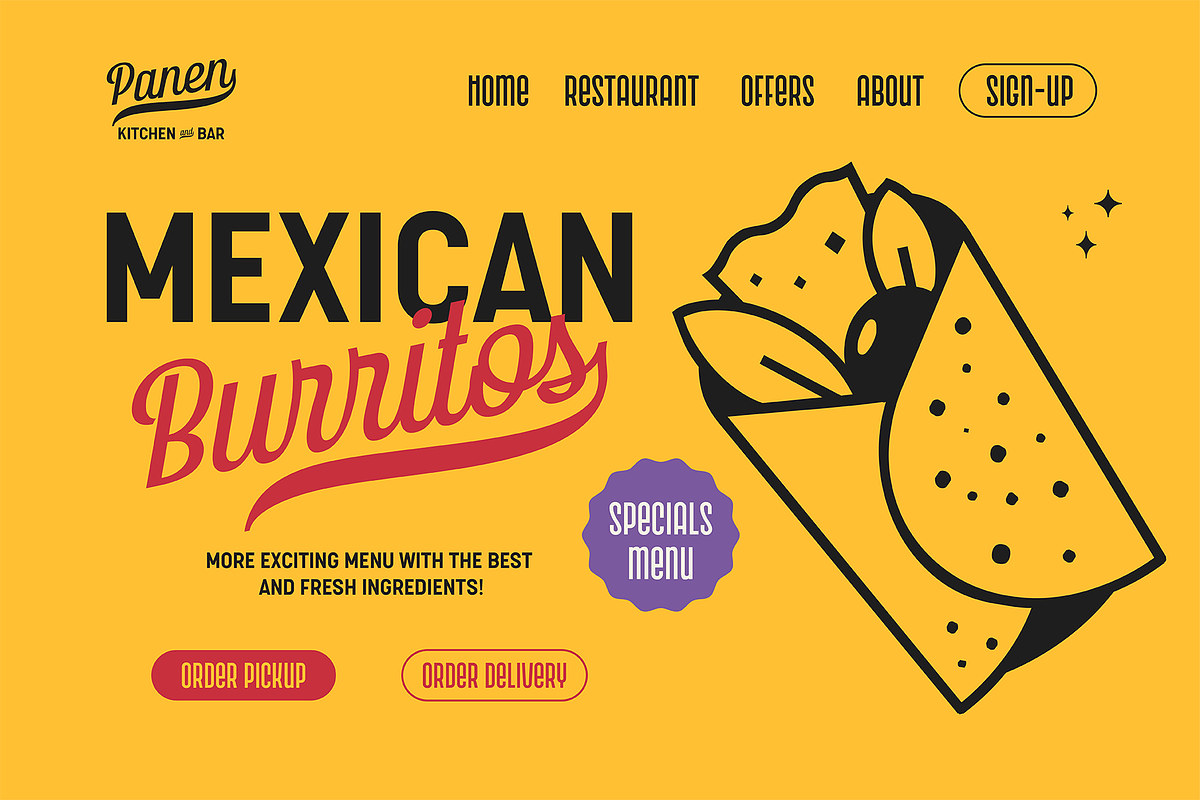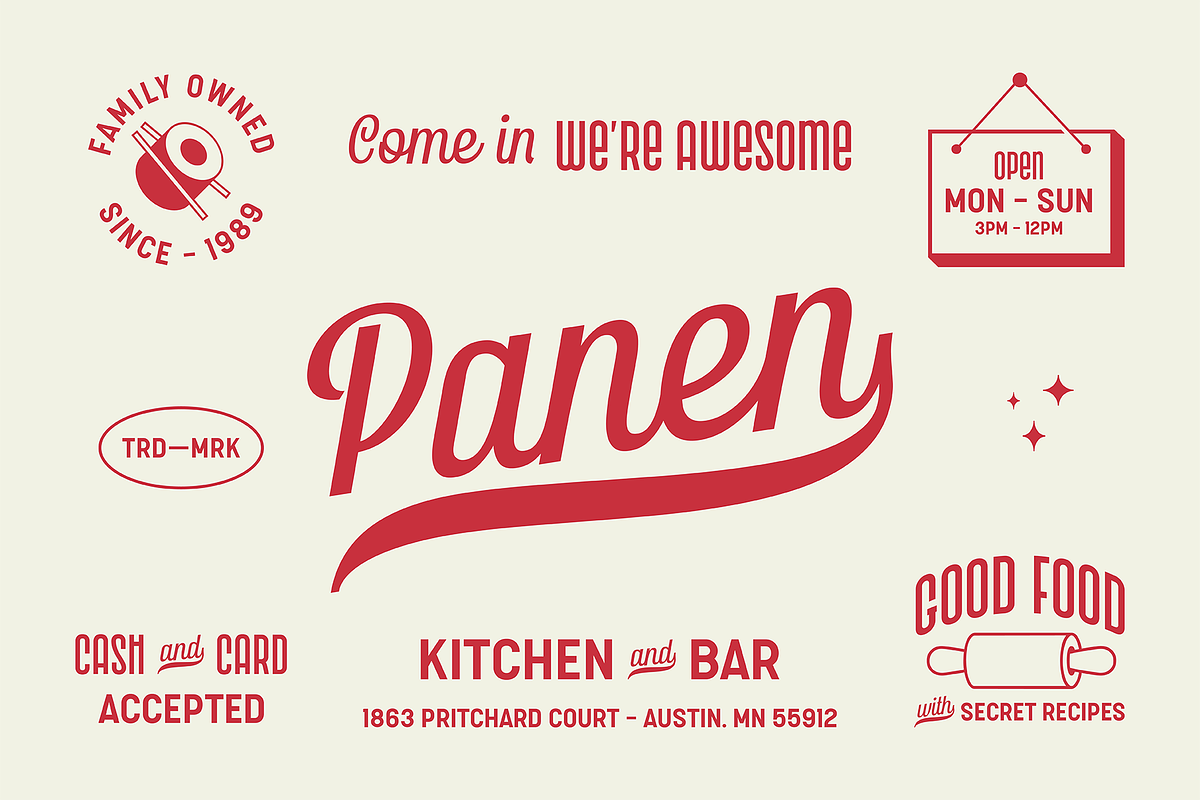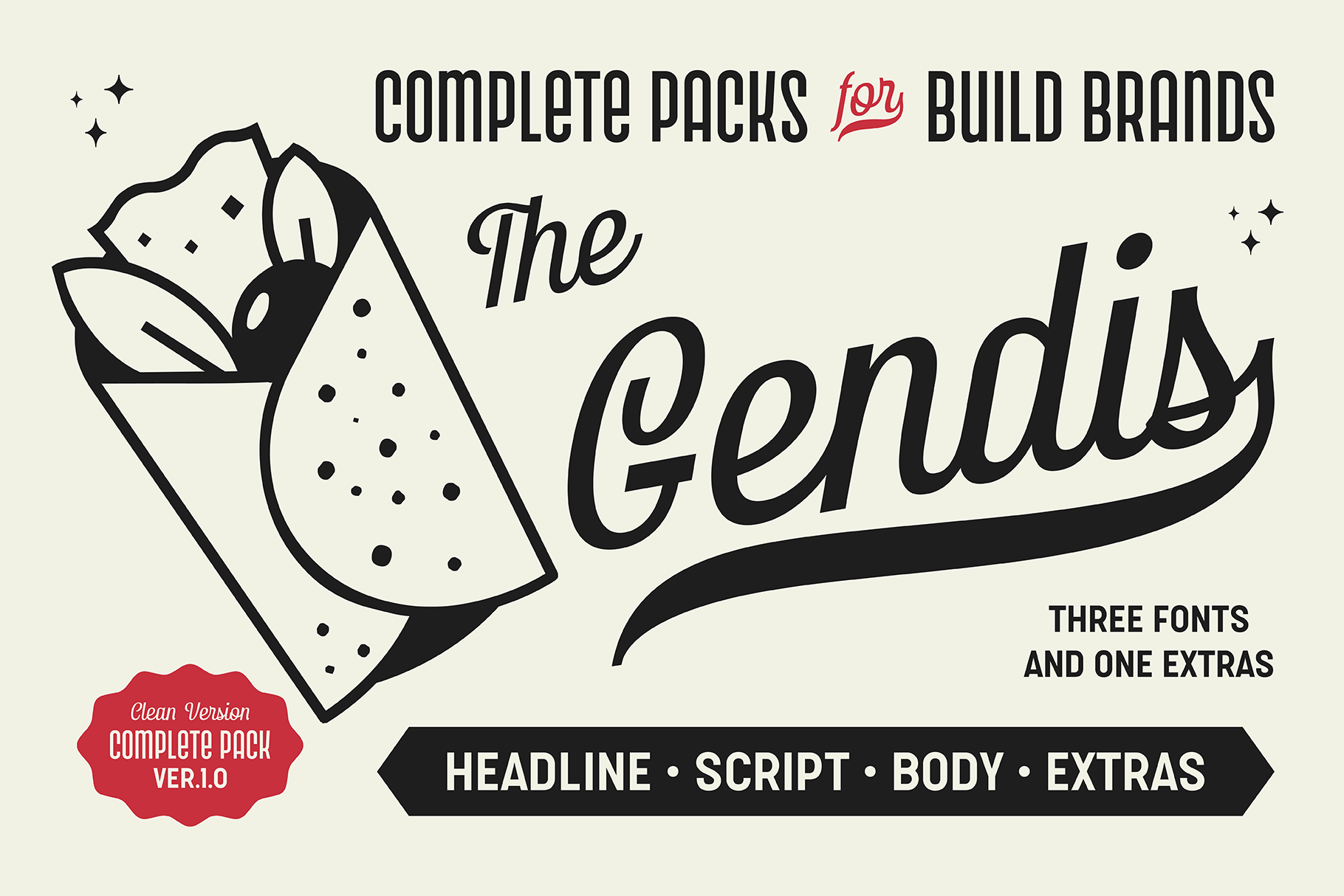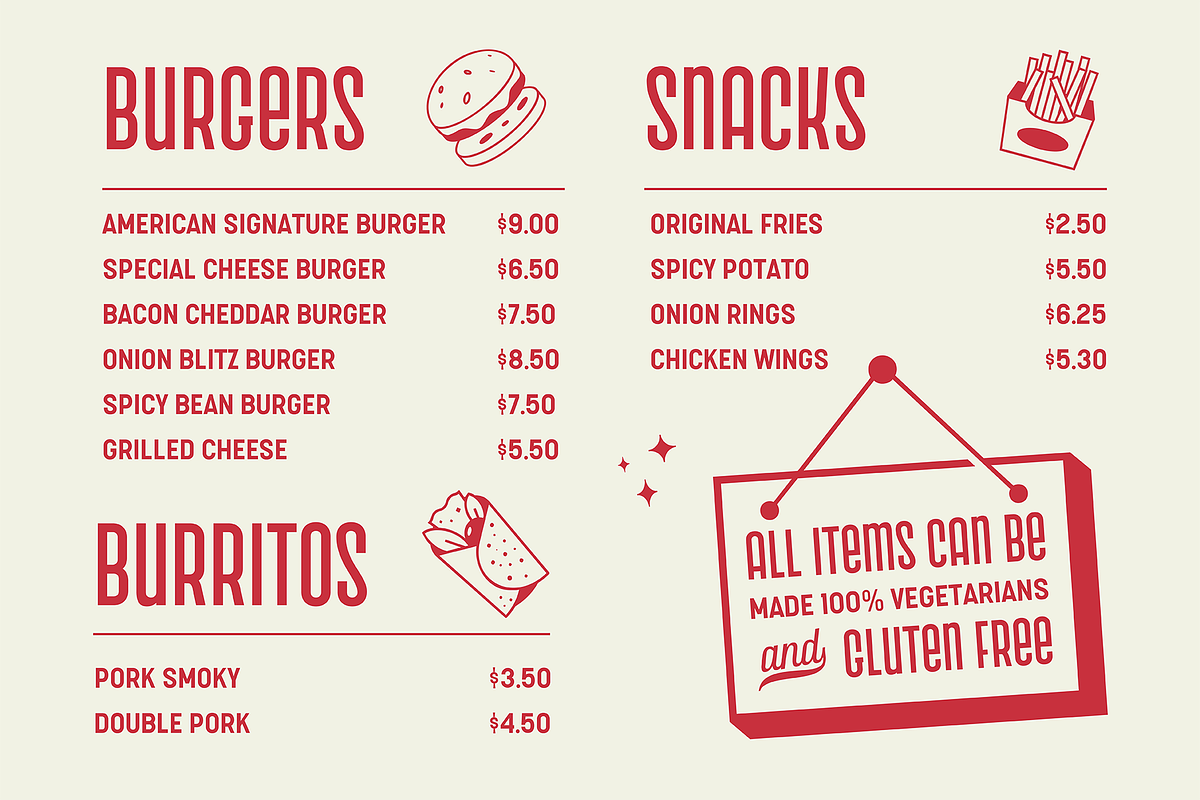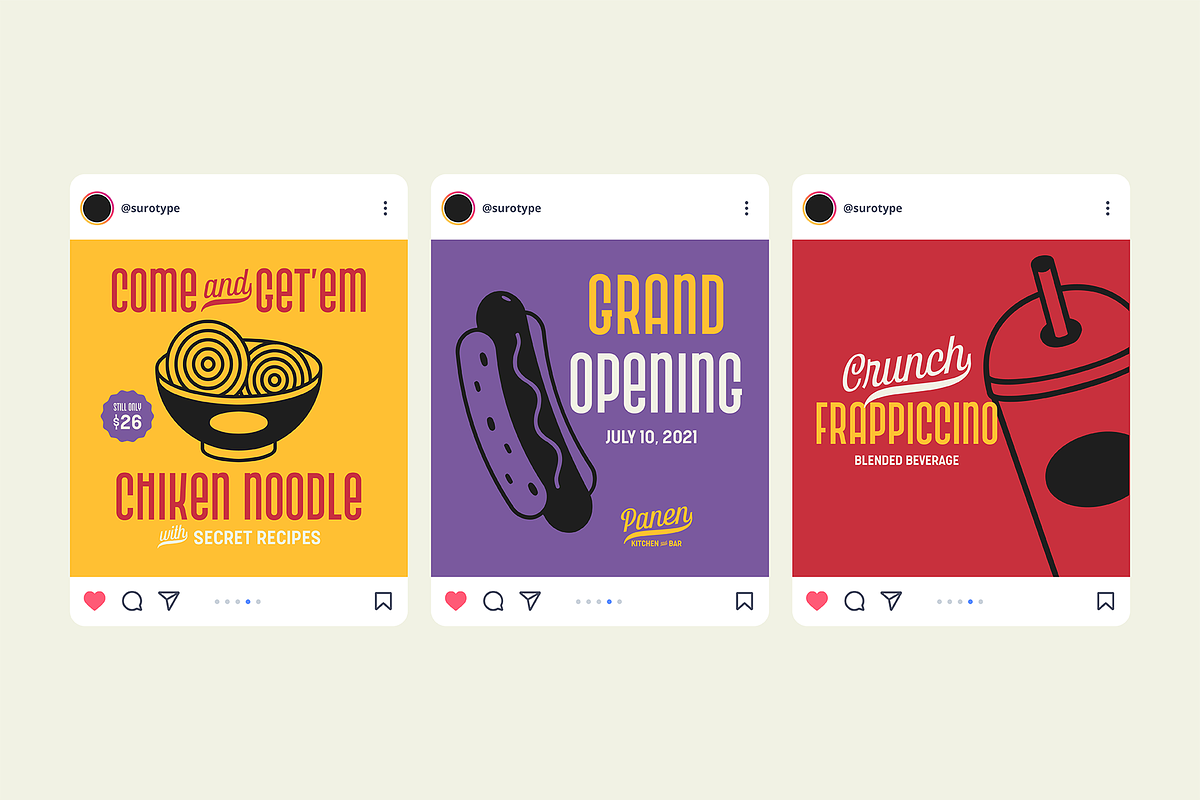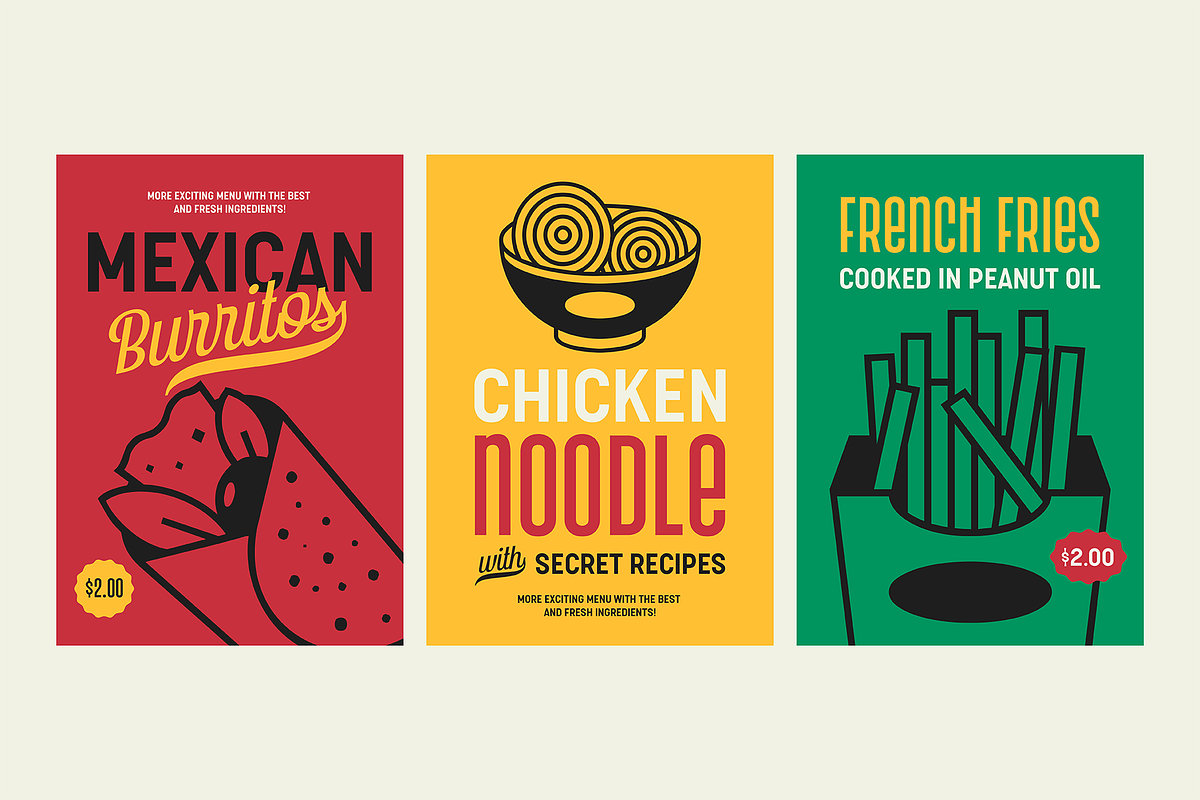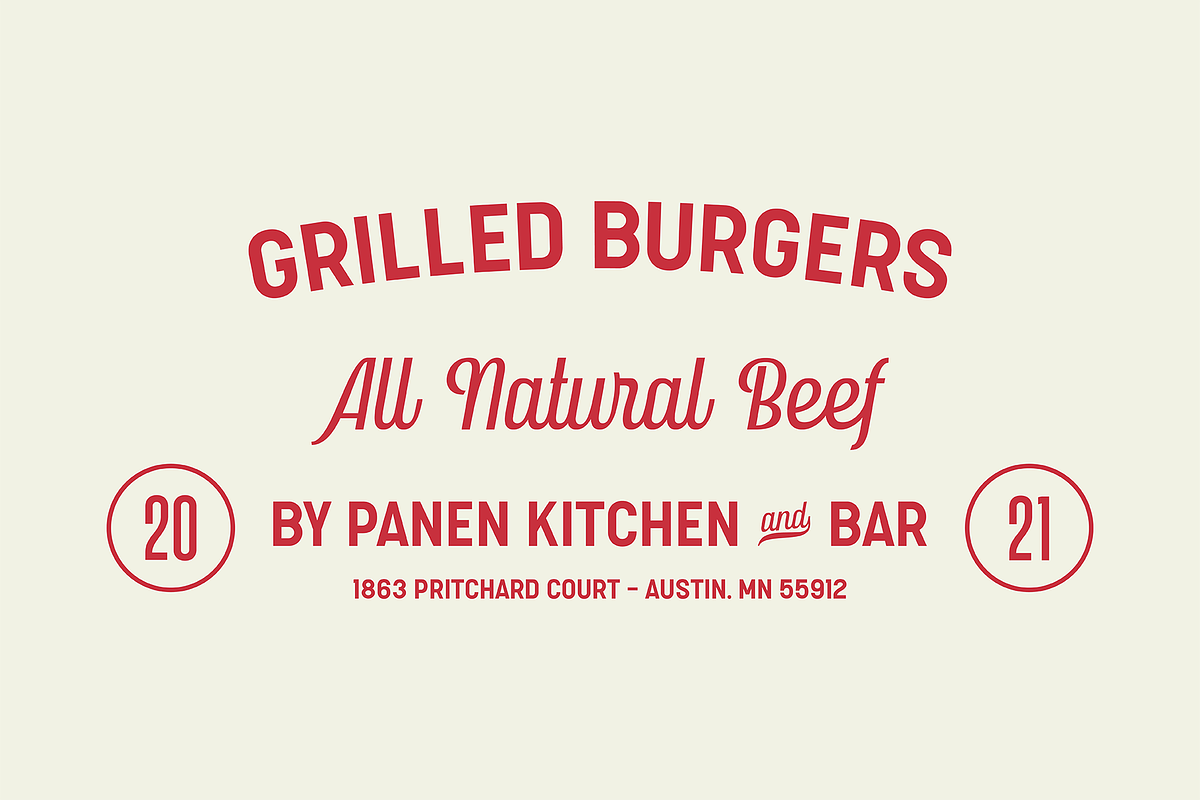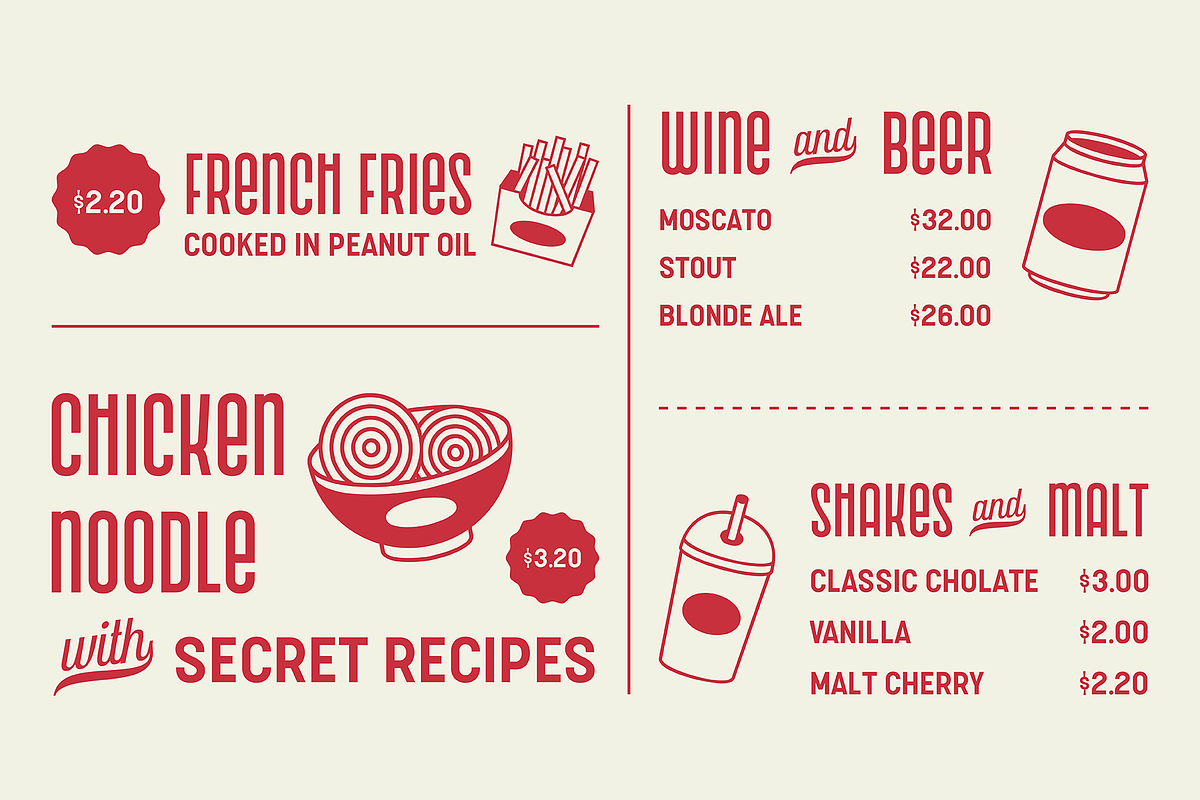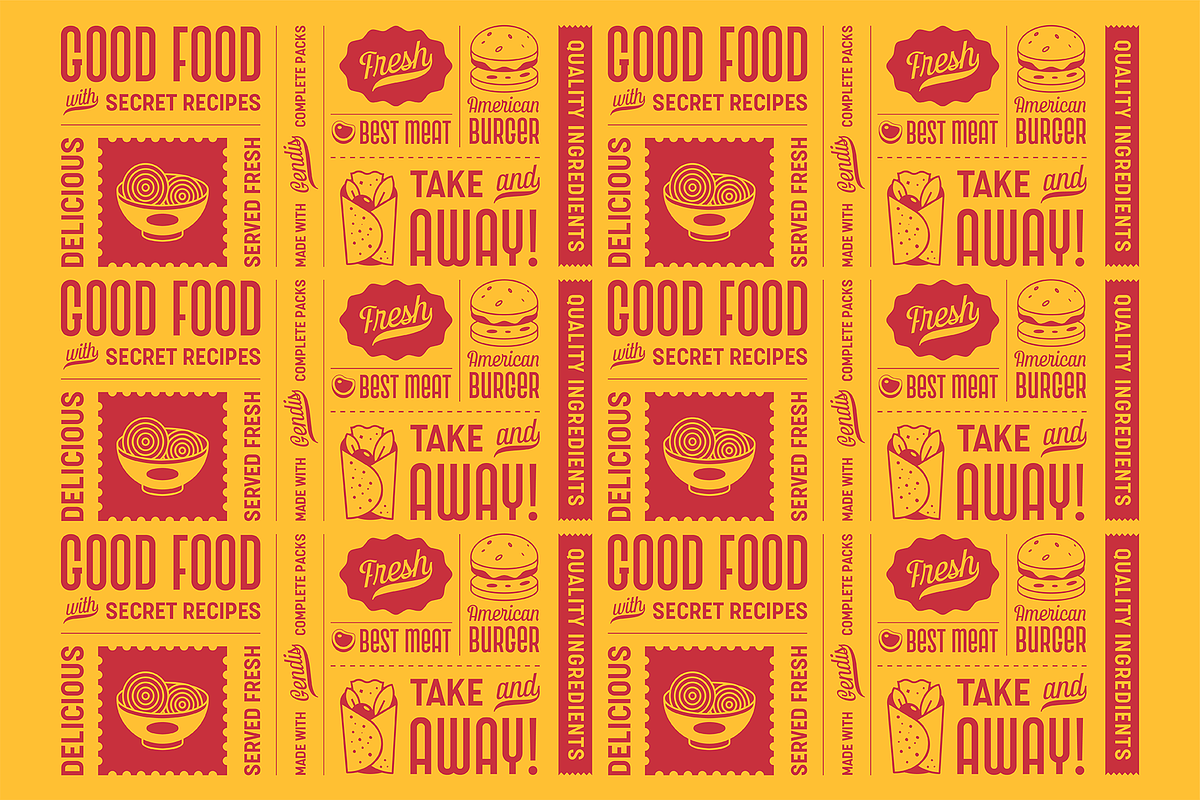
Gendis - Font Packs
Gendis is a complete fonts pack for build brands, comes in three different styles and extras. This complete package is perfectly for all your creative work such as branding projects, packaging design, ads and more.